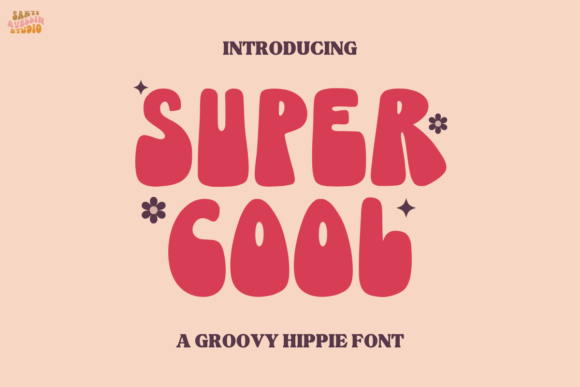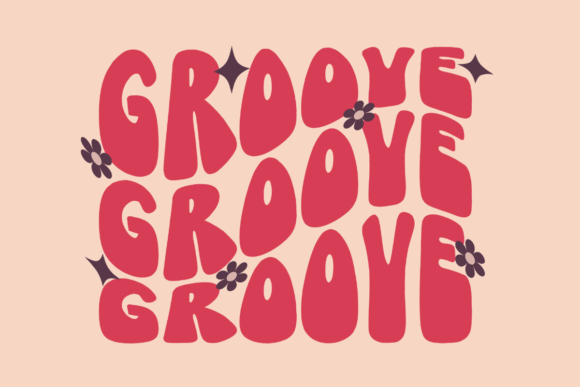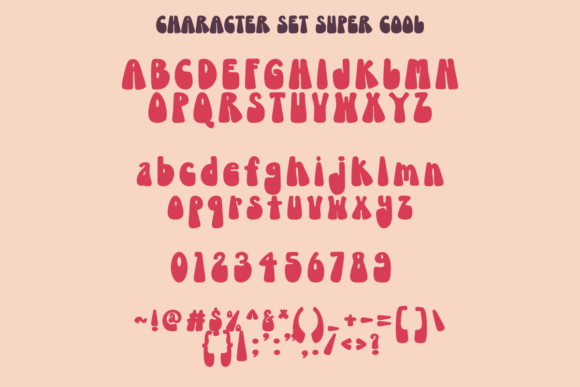
Super Cool Font
Super Cool, an irresistibly groovy, hippie-inspired font. Its playful curves and unique style make it an excellent choice for bringing a pop of retro flair to any medium. Be it inspiring quotes, fetching t-shirt prints, distinctive mug designs, elegant packaging, or warmth-filled greeting cards – this font adds an authentic twist of the ’60s and ’70s to it all, making your design project stand out brilliantly! Discover the vintage appeal of Super Cool – where every letter is a trip down memory lane.